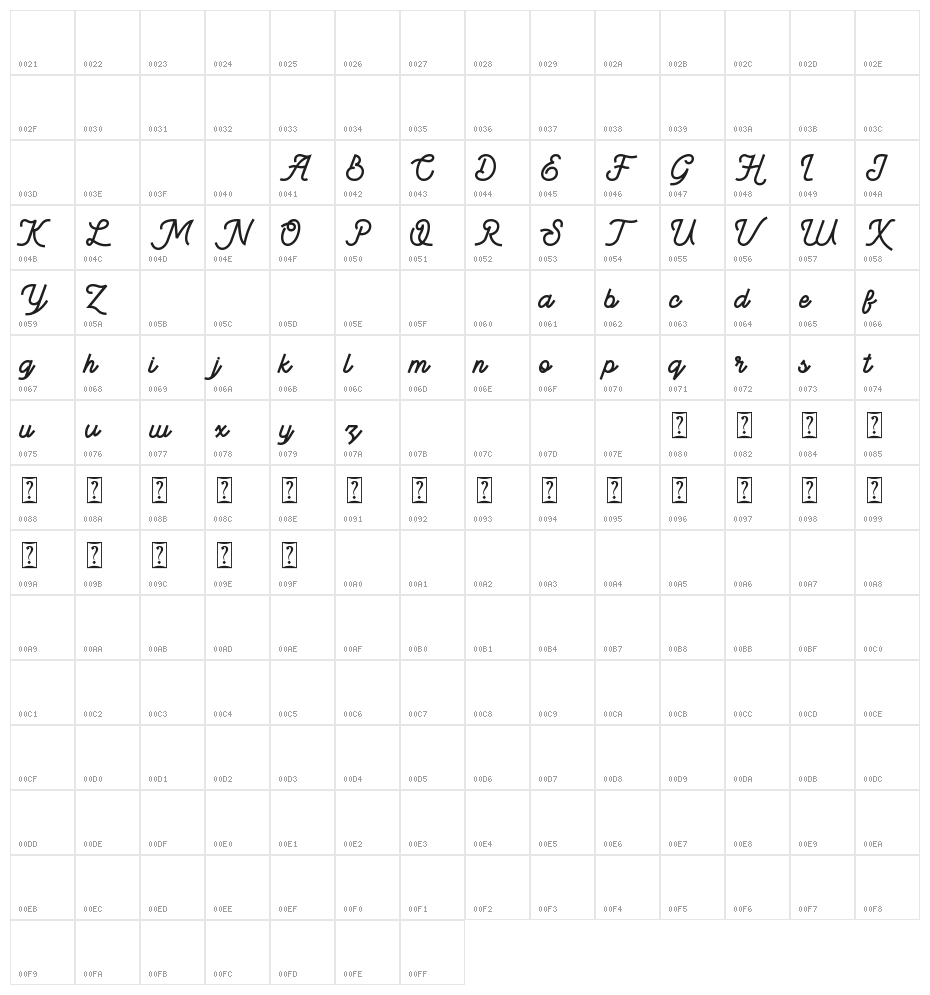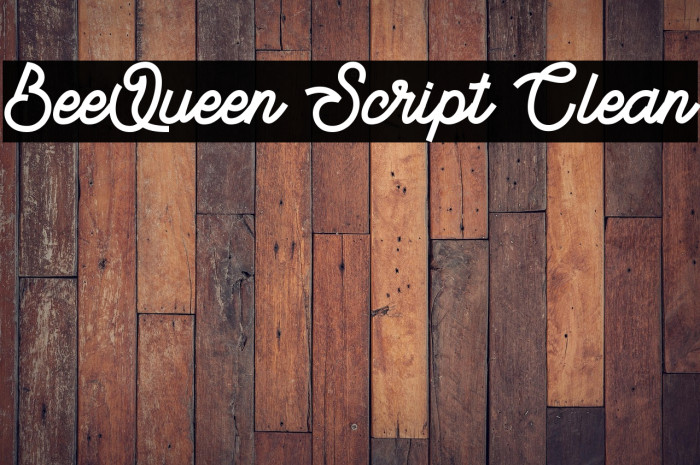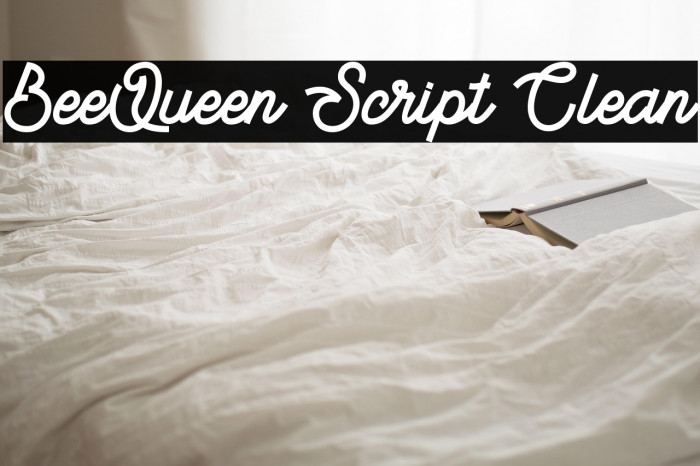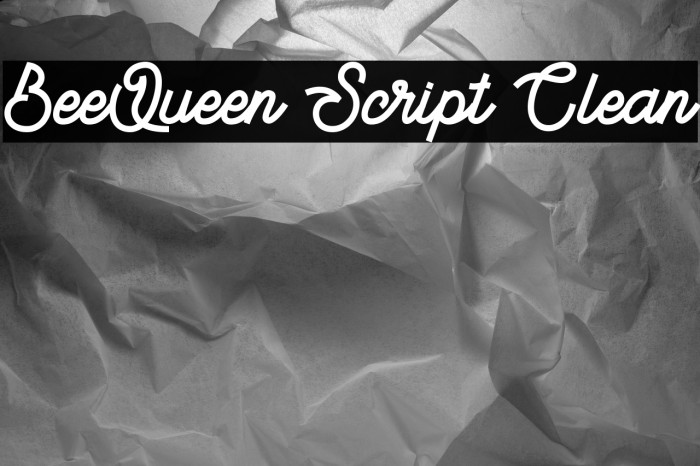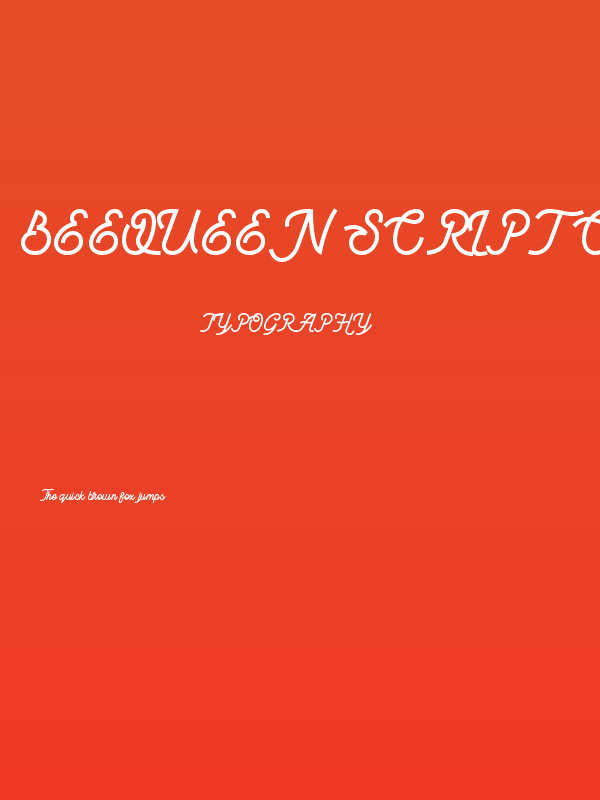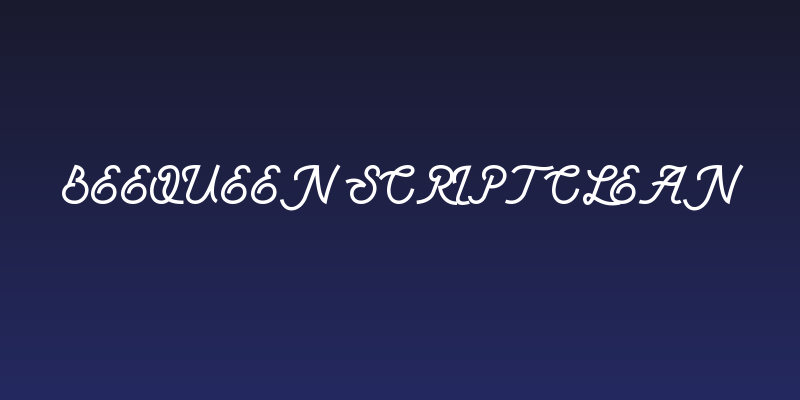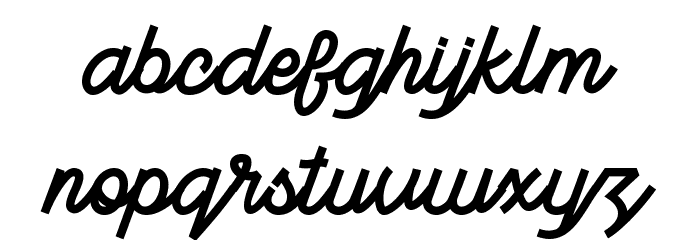
BeeQueen Script Clean Font
BeeQueen Script Clean Description
This font features a flowing, elegant script style that mimics the fluidity of handwriting. The uppercase letters are ornate with sweeping curves and loops, while the lowercase letters maintain a consistent slant and smooth connections between characters. The overall appearance is both sophisticated and approachable, making it suitable for a variety of design applications. The font's strokes are moderately thick, providing good readability while retaining a decorative flair. The character spacing is tight, enhancing the script's cohesive look.
| Proposed Projects | Ideal for wedding invitations, greeting cards, branding projects, and elegant packaging designs. |